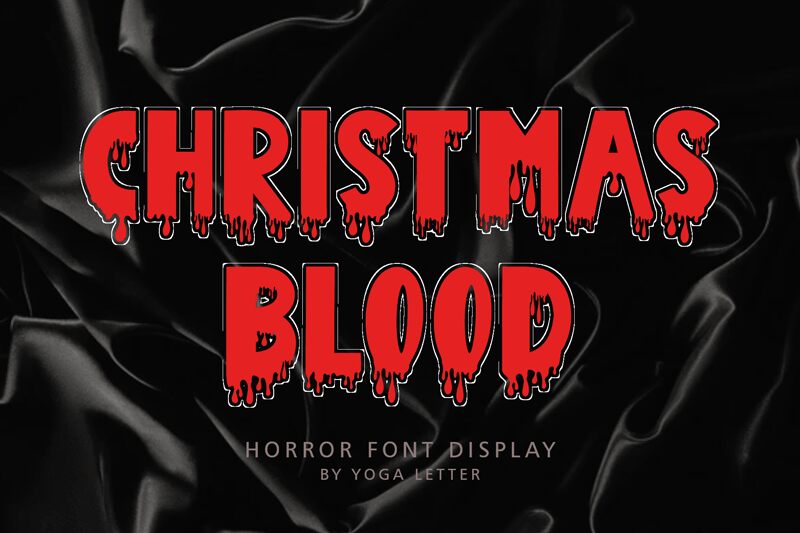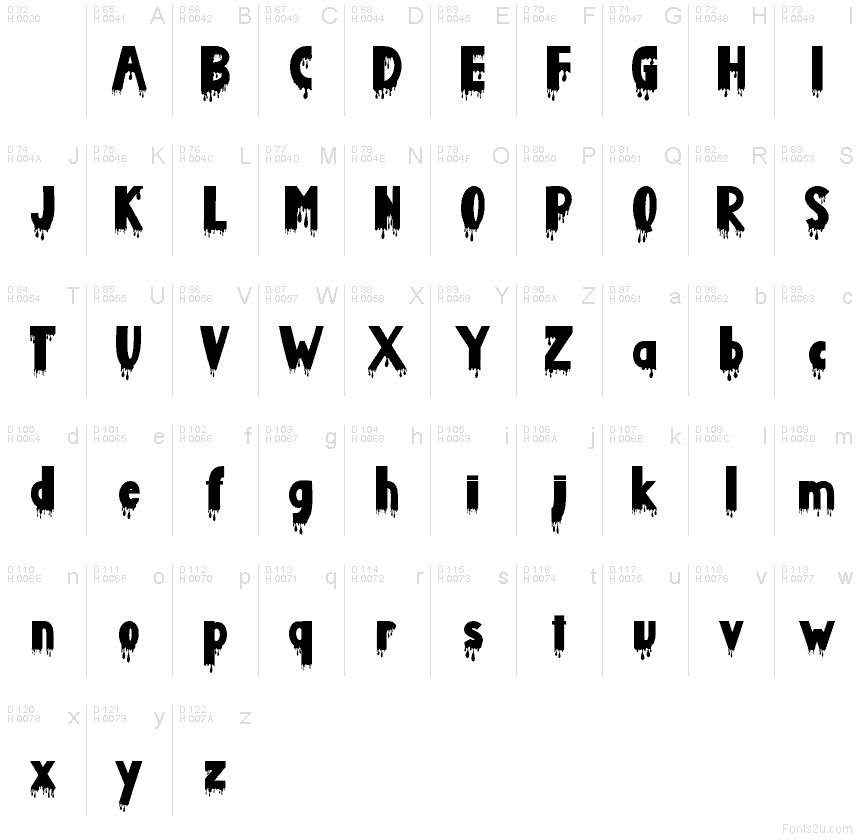
Christmas Blood
Christmas Blood font by Yoga Letter is a free horror holiday font that twists cozy Christmas cheer into something dark and drippy. Heavy, inky letterforms sag with thick “icicle” drops that feel more like blood than snow, creating a creepy, slasher-movie vibe while still staying playful and readable. The tight, bold shapes hit like a stencil on a haunted gift box, making every word look like it’s been painted onto foggy glass with a gloved finger.
Using Christmas Blood, you can push creepy Christmas branding, horror-themed party invites, alternative holiday cards, spooky merch, YouTube thumbnails, and eerie event posters into gloriously unsettling territory. This free font rewards being set large so all the drips and blobs really show, then paired with a simple, clean sans serif for body text to keep things legible.